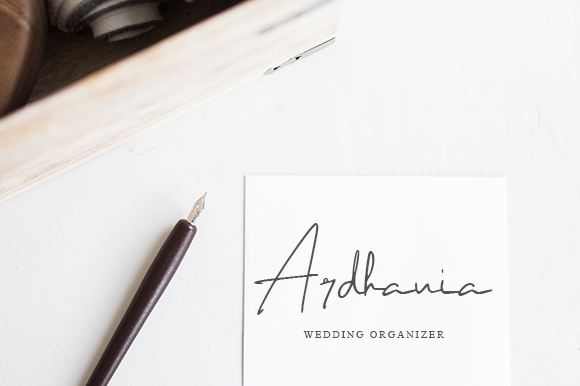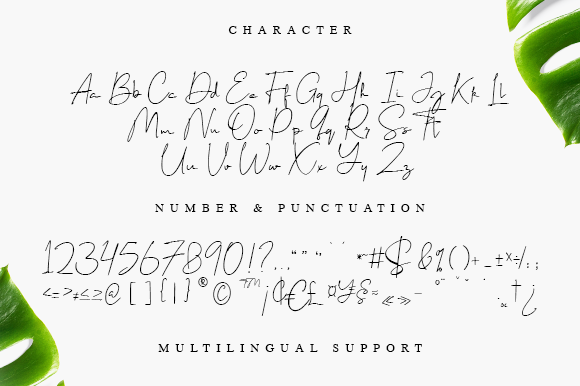
About Tarendra Naushad Font
Tarendra Naushad is a stunning and elegant script font that exudes beauty and sophistication. With its refined and stylish appearance, it adds a touch of luxury and charm to any design project. Whether you’re creating wedding invitations, thank you cards, quotes, greeting cards, logos, or business cards, Tarendra Naushad is the perfect choice for adding a personalized and exquisite touch.
The flowing and graceful letterforms of Tarendra Naushad make it an ideal font for elegant and formal designs. It captures the essence of classic calligraphy, with its sweeping strokes and intricate details. The font’s delicate curves and ornate embellishments enhance its beauty and make it visually captivating.
Wedding invitations are a perfect application for Tarendra Naushad. Its romantic and refined style adds a touch of sophistication to the invitation, setting the tone for a memorable and elegant celebration. The font’s versatility also allows it to be used in various other designs related to weddings, such as thank you cards, quotes, and greeting cards, where a personalized and sentimental touch is desired.
Logos and business cards designed with Tarendra Naushad instantly convey a sense of professionalism and class. The font’s stylish and unique script adds a distinct and memorable element to branding materials, making a lasting impression on clients and customers. Its timeless appeal ensures that your designs will stand the test of time.
When working with Tarendra Naushad, consider pairing it with complementary fonts and graphic elements to create a cohesive and harmonious design. Experiment with different sizes, colors, and arrangements to achieve the desired effect. The font’s versatility allows it to be adapted to various design styles, whether it’s a classic and formal approach or a more modern and contemporary look.
In conclusion, Tarendra Naushad is a beautiful and refined script font that adds elegance and style to your designs. Its versatility makes it suitable for a wide range of applications, from wedding invitations to logos and business cards. With Tarendra Naushad, you can create personalized and sophisticated designs that leave a lasting impression.